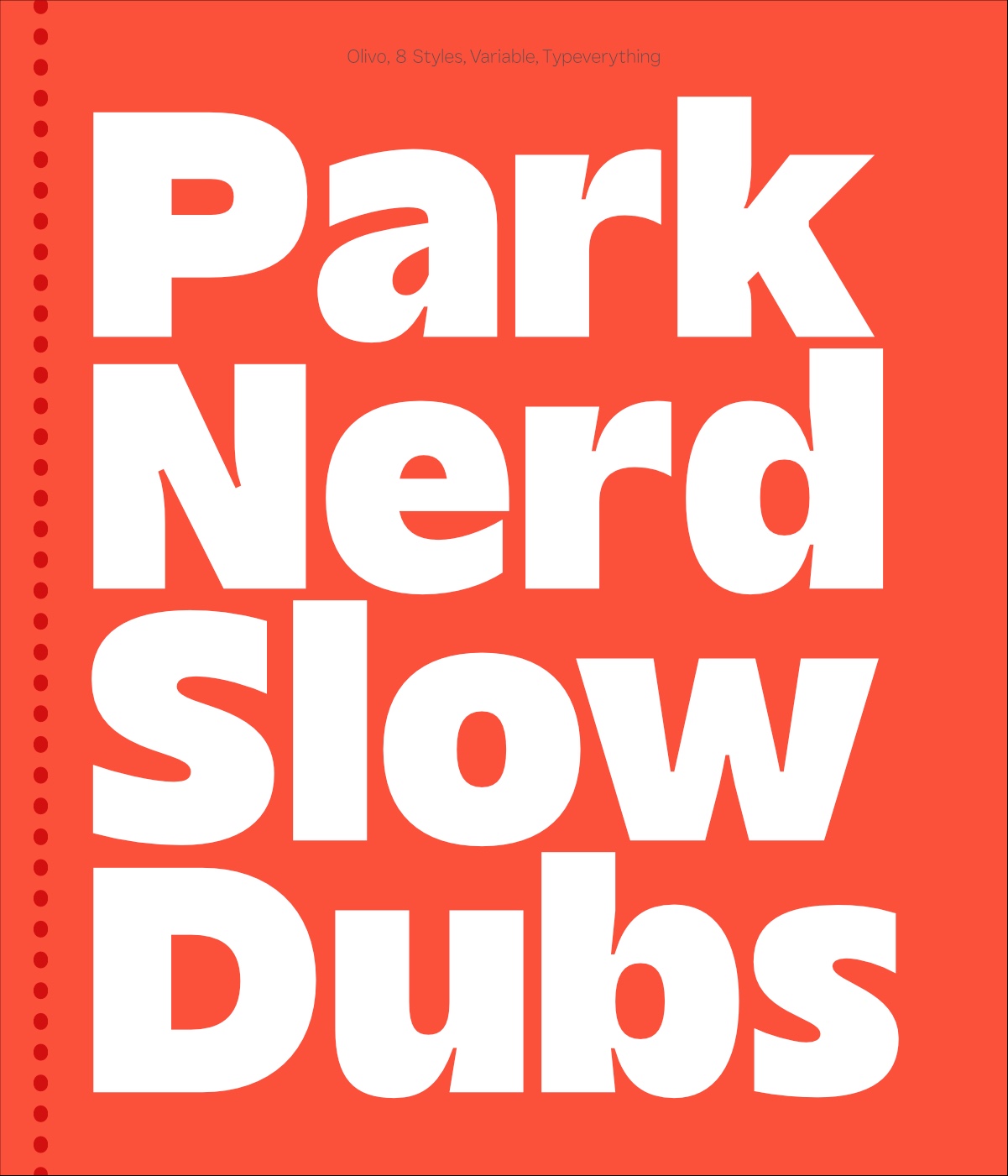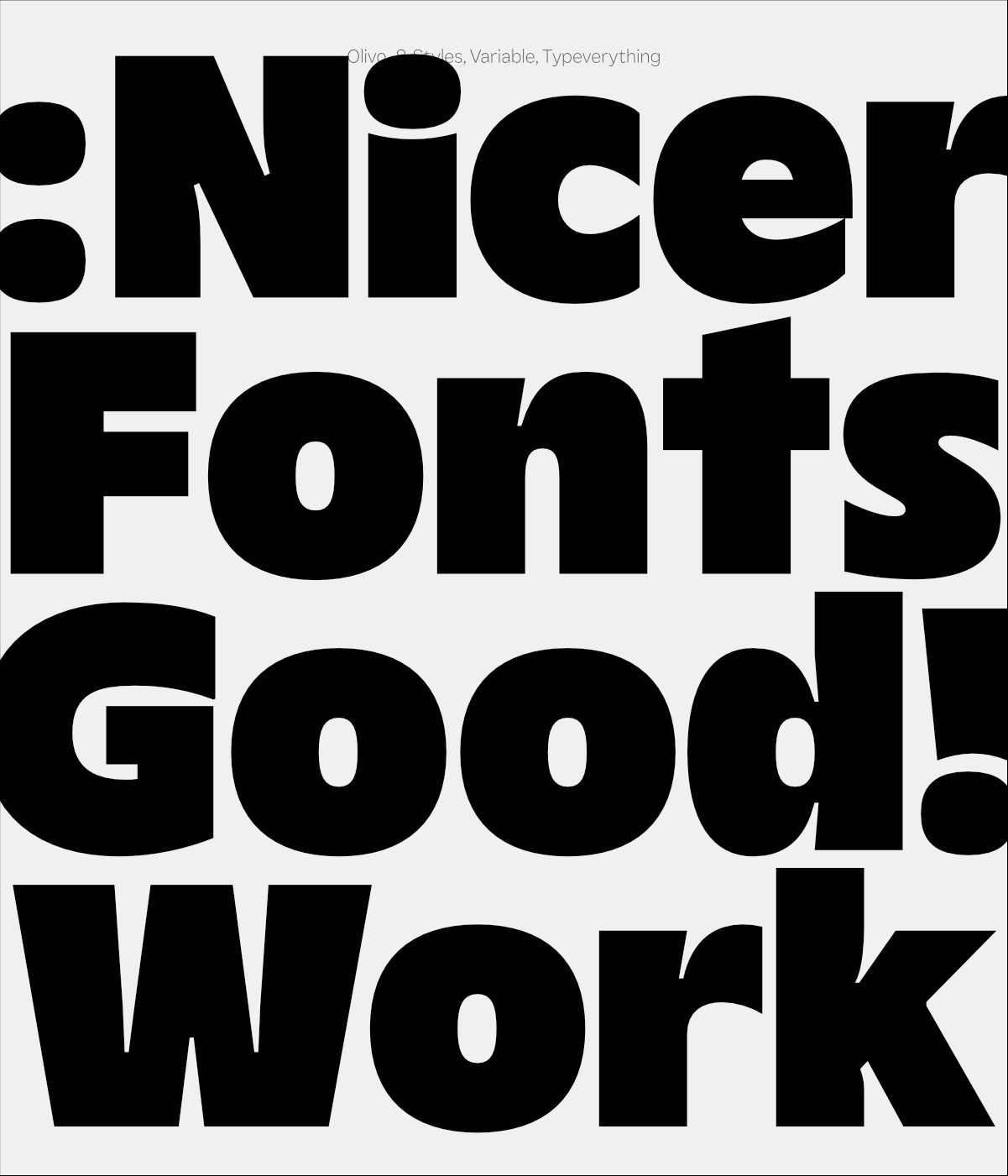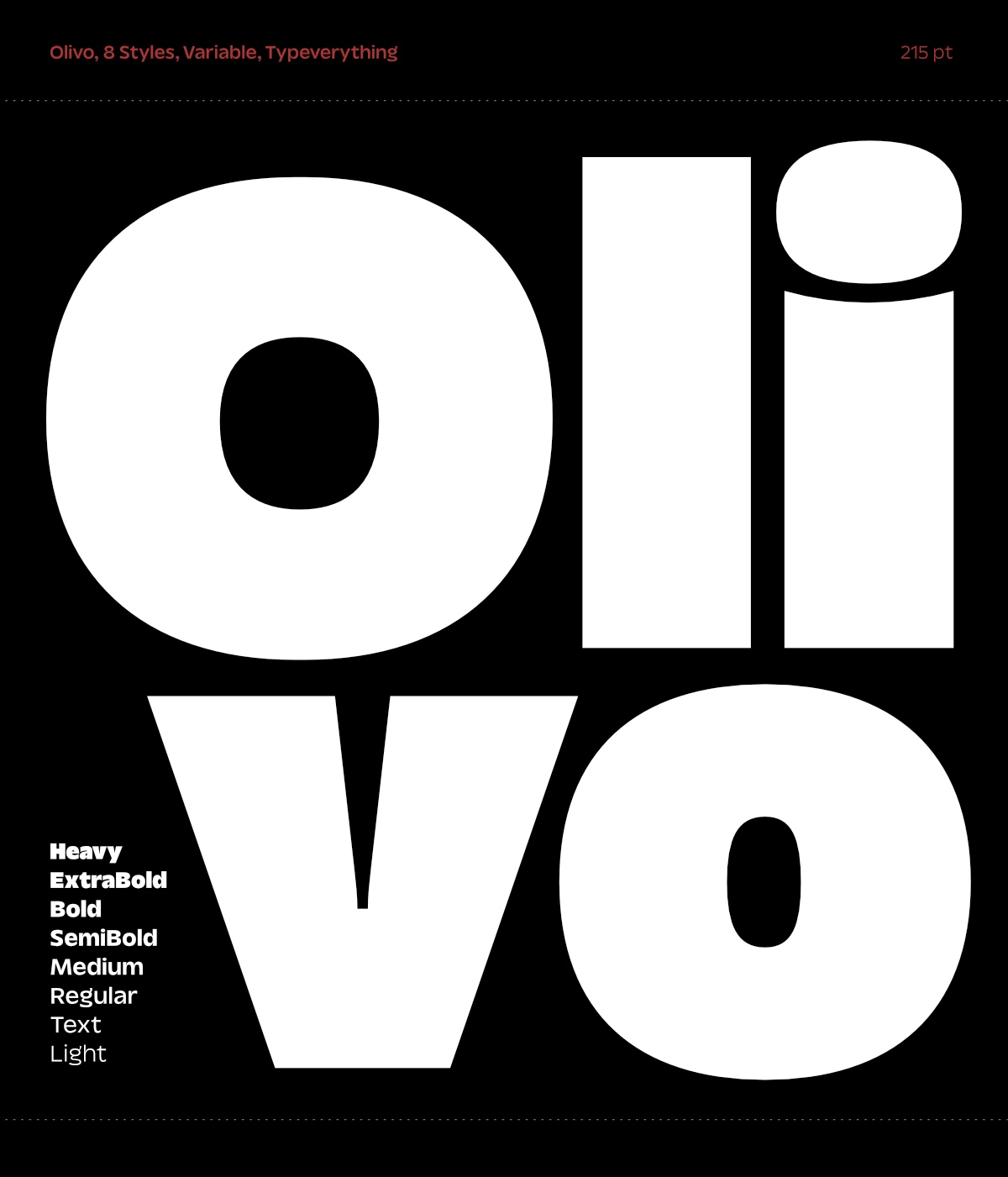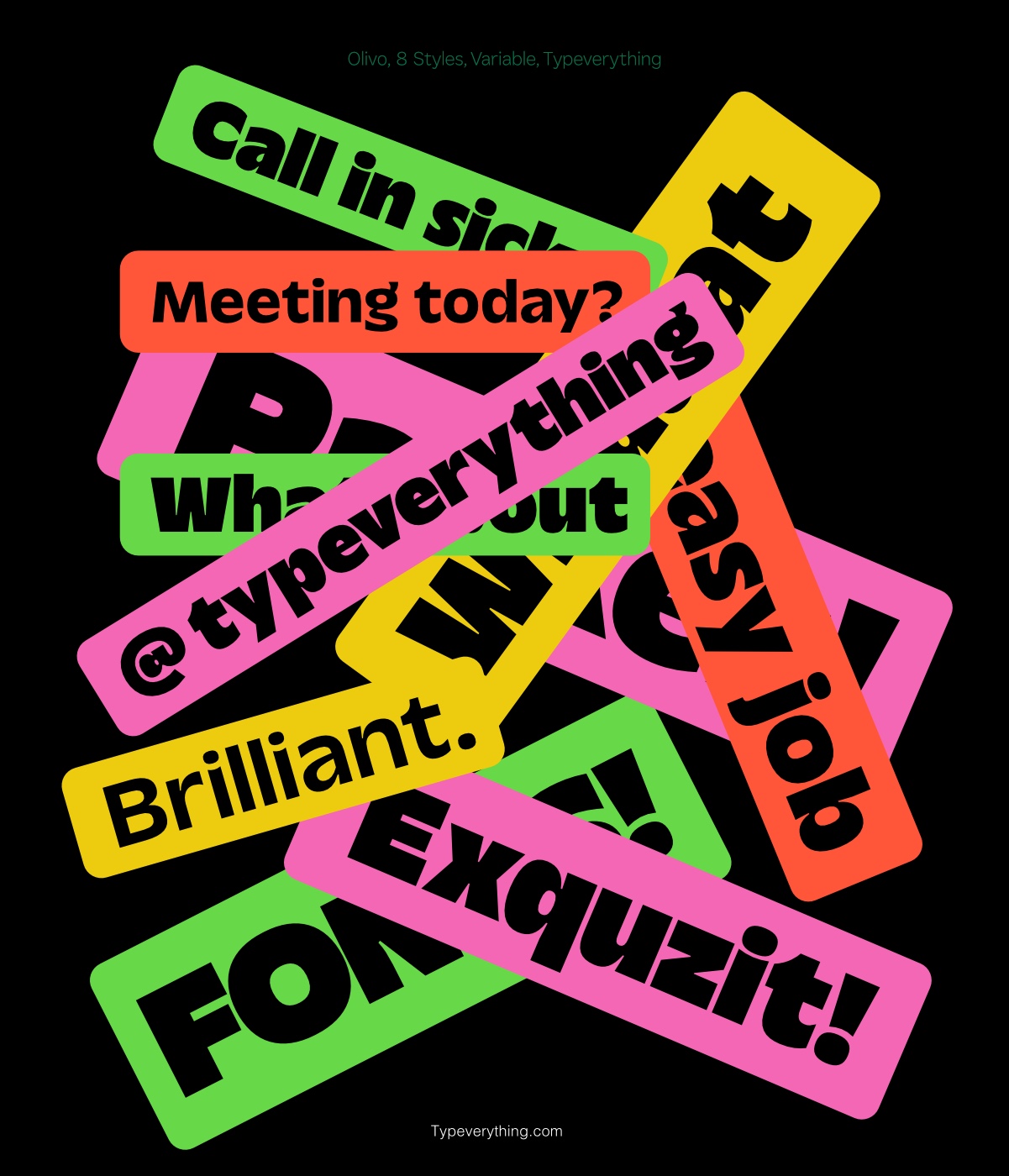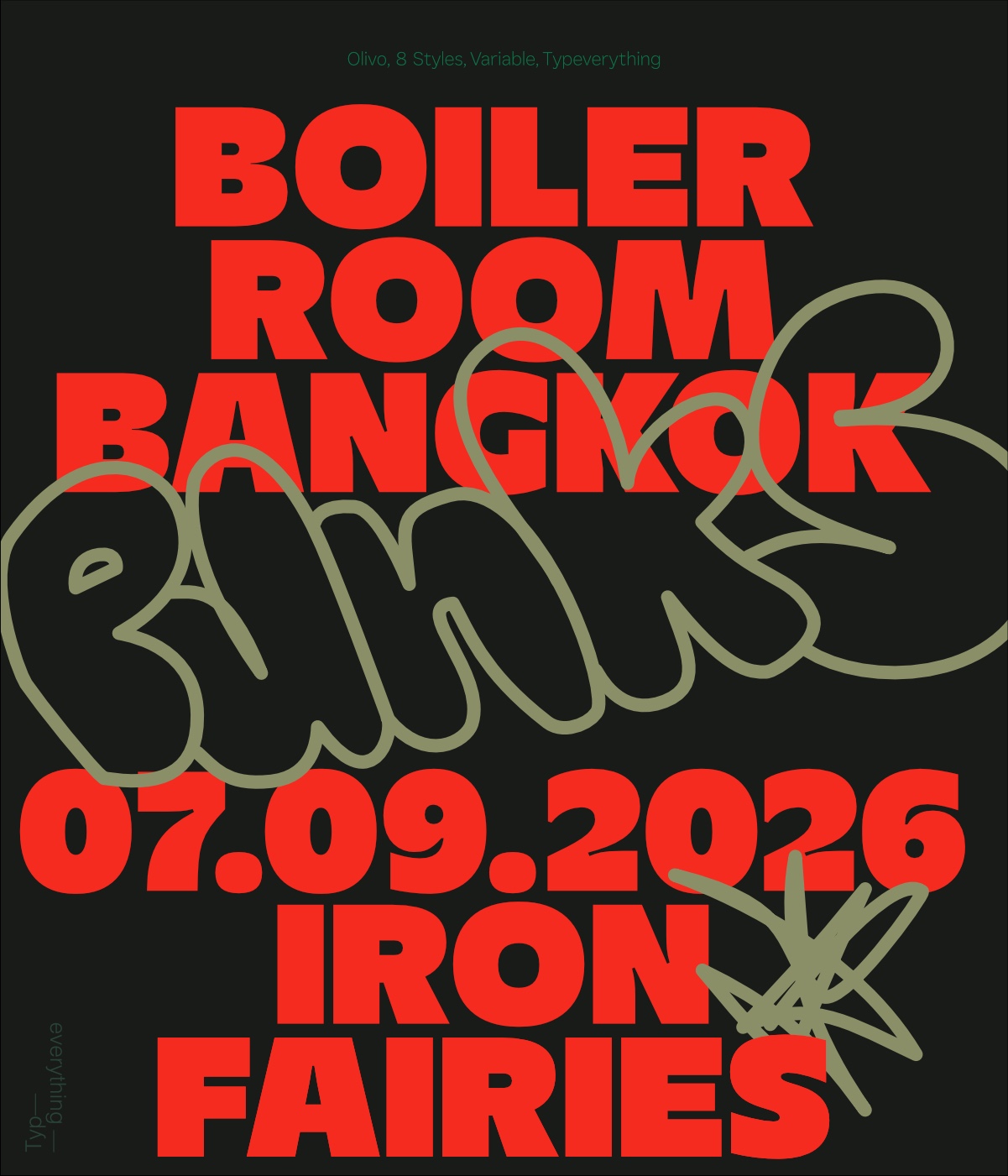
Olivo Typeface
Olivo is a contemporary reinterpretation of the iconic Antique Olive. While the original has been reimagined many times and remains a cornerstone of modern typography, we revisited it with a focus on today’s visual language. The original contrast logic, so distinctive in print, felt less suited for digital environments. We adjusted the proportions, contrast, and rhythm to create a version that performs beautifully across contemporary media. The first release includes 8 styles and a variable font for complete flexibility. Designed for branding, display, and text, Olivo bridges mid-century character with modern clarity, confident, human, and unmistakably fresh.